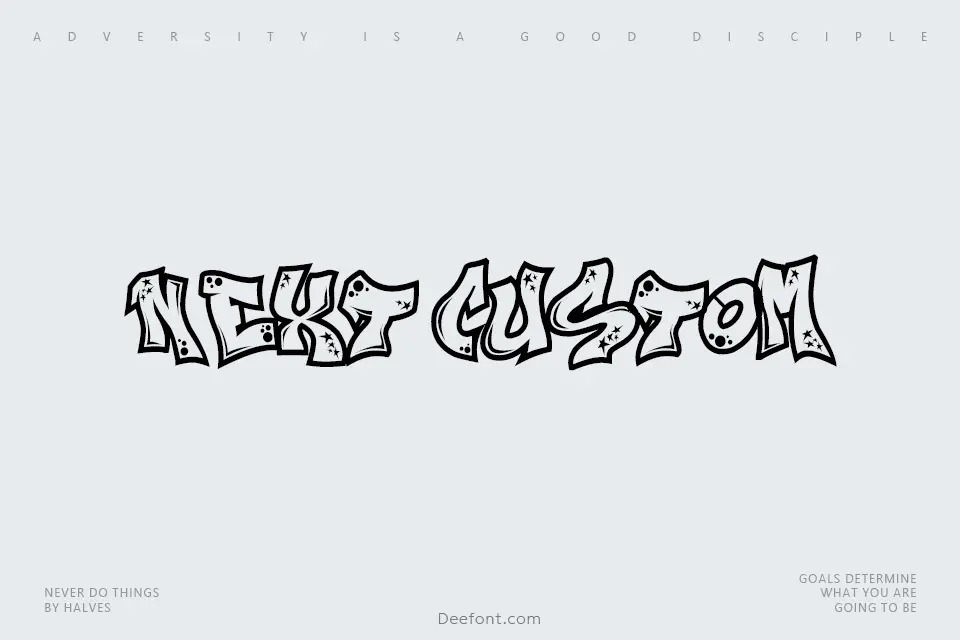
Next Custom Font
Next Custom is a bold, graffiti-inspired script font featuring dynamic curves and star-like embellishments that create a distinctive urban aesthetic. With its playful and rebellious edge, this font showcases 42 unique characters adorned with decorative elements, maintaining consistent thickness for excellent readability while embracing artistic flair. The energetic design makes it perfect for eye-catching headlines, street art designs, music album covers, and edgy branding projects that demand a powerful visual statement with contemporary urban vibes.